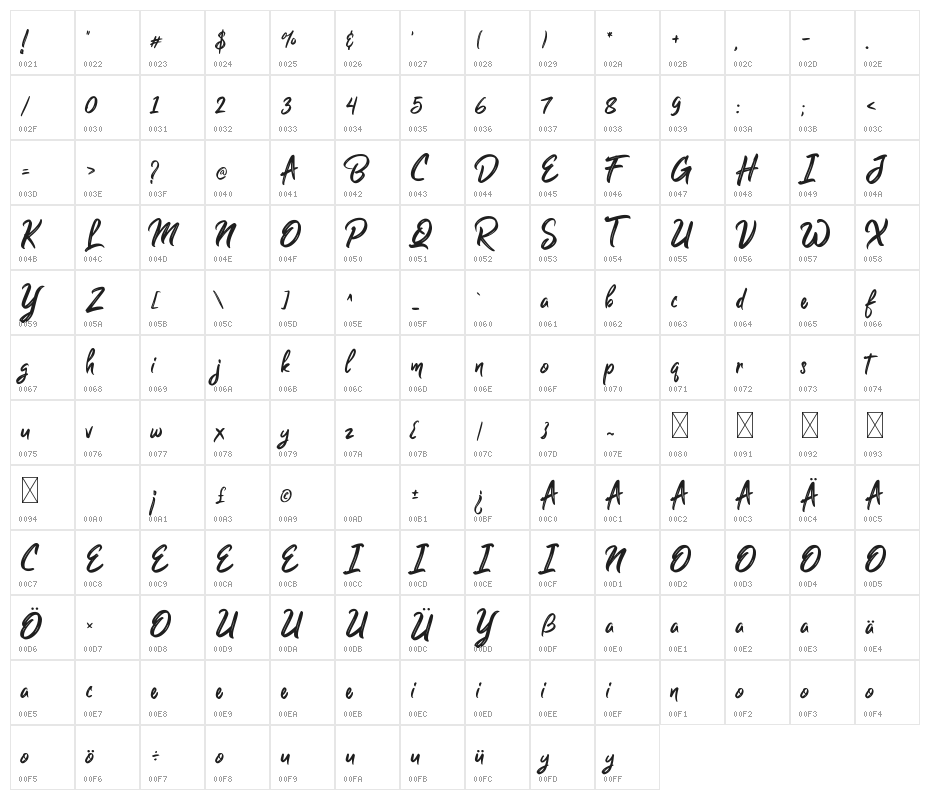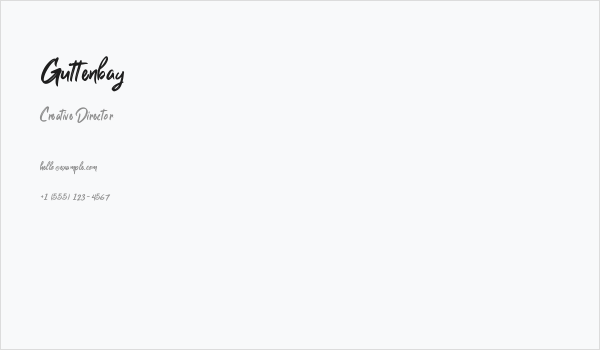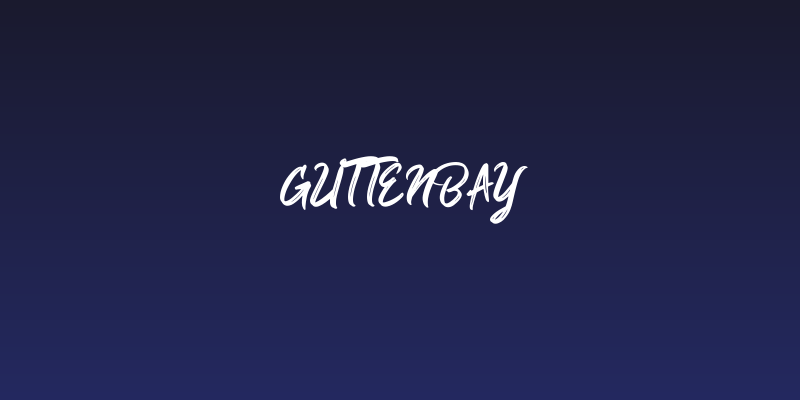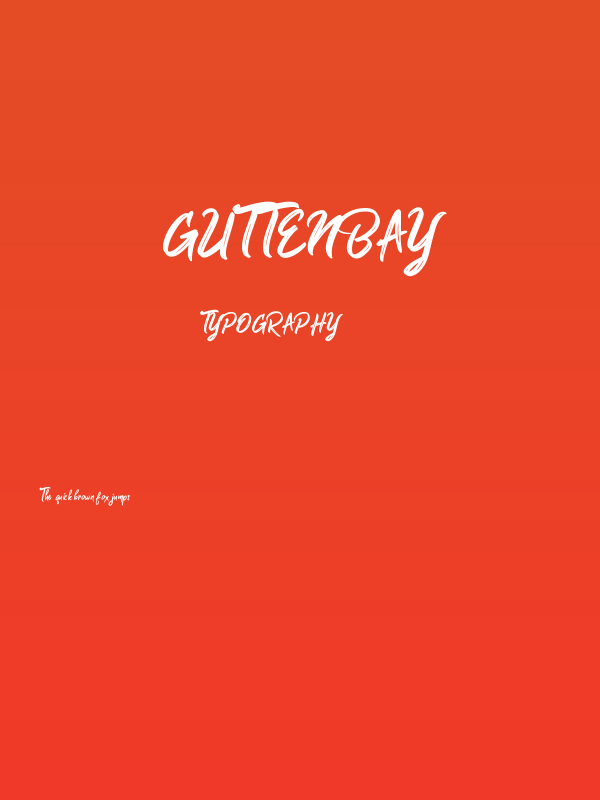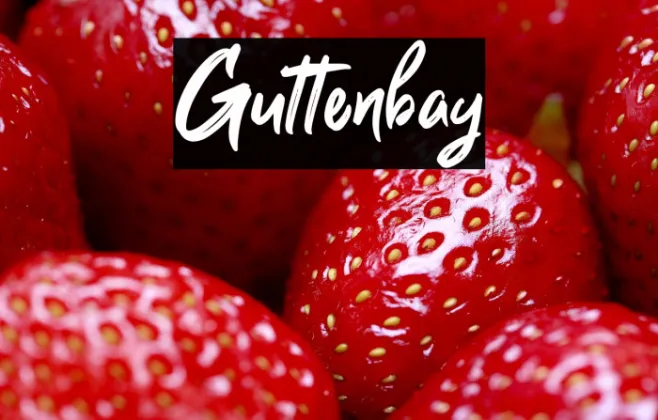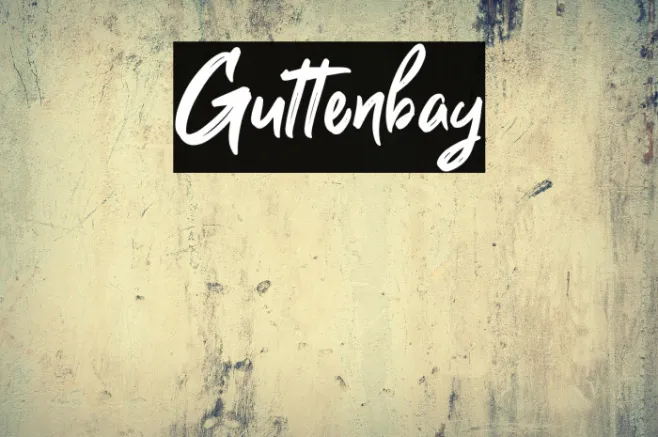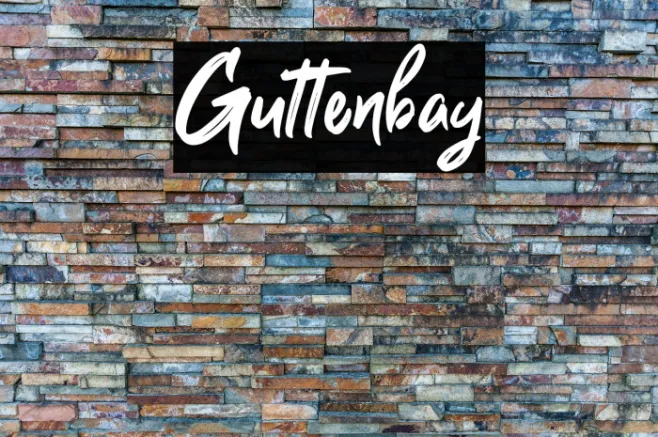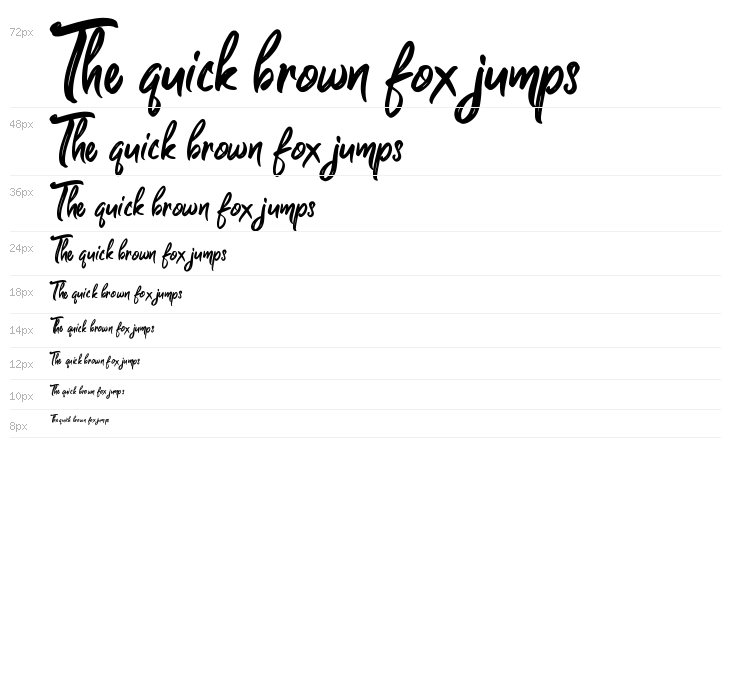
Guttenbay Font
Guttenbay Description
This font exudes a dynamic and energetic style, characterized by its bold and expressive brush strokes. The letters are crafted with a sense of movement and fluidity, giving it a handwritten appearance that is both artistic and informal. The uppercase letters are particularly striking, with their sweeping curves and varying line thicknesses, while the lowercase letters maintain a consistent flow. The numerals and special characters are equally expressive, maintaining the overall aesthetic. This font is ideal for projects that require a personal touch or a creative flair.
| Proposed Projects | Ideal for branding, packaging, posters, and invitations where a personal and artistic touch is desired. |